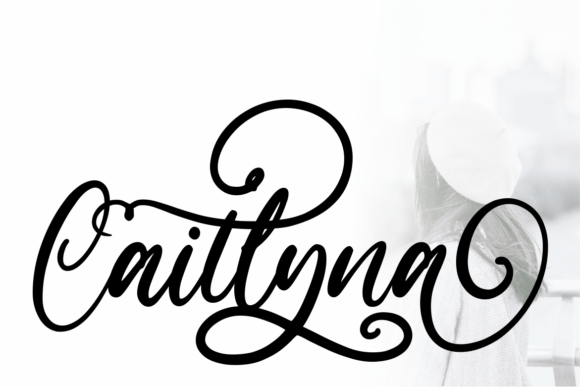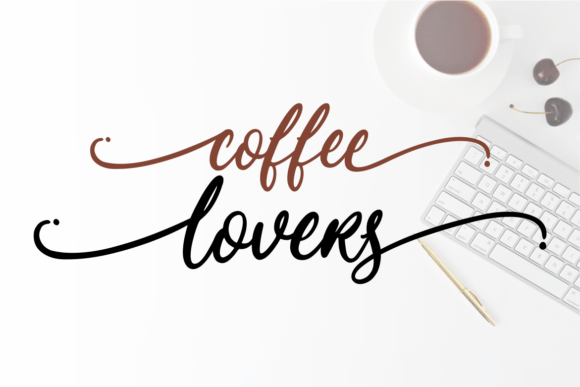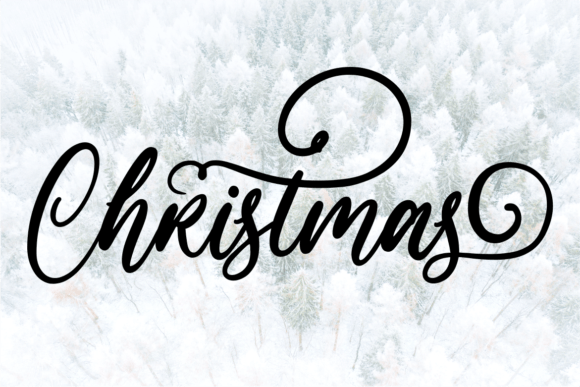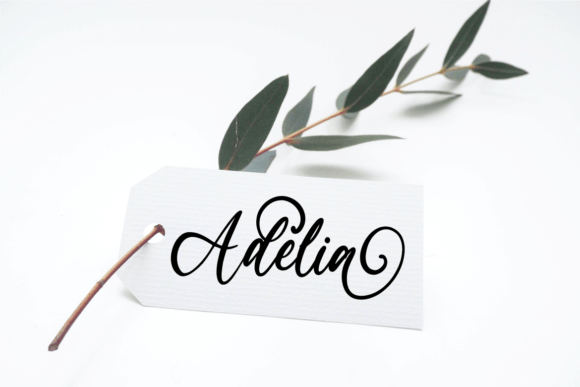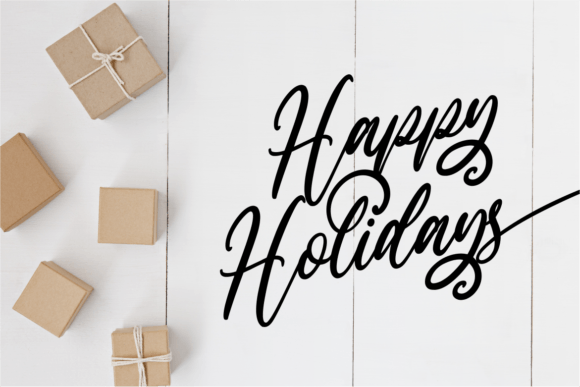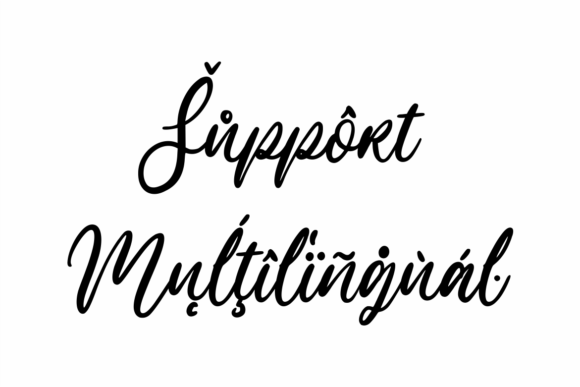
Introducing Farmhouse Font: Elevate Your Designs with Elegance and Style
Are you searching for a font that exudes elegance, sophistication, and a touch of romance? Look no further than Farmhouse Font, a delicate and stylish handwritten script font that is sure to elevate your designs to the next level. With its versatile nature and wide range of applications, Farmhouse Font is the perfect addition to any designer’s or crafter’s toolkit.
Farmhouse Font is a beautiful, handwritten script font that boasts a delicate and elegant aesthetic. Its stylish and refined appearance makes it an ideal choice for a variety of design projects, from greeting cards and invitations to headlines and branding materials. This font is designed to add a touch of romance and sophistication to your work, making it perfect for designers and crafters who want to create unique and eye-catching designs.
- Delicate and Elegant Design: Farmhouse Font features a beautiful, handwritten design that is both delicate and elegant. Its refined appearance makes it perfect for designs that require a touch of sophistication.
- Versatile Applications: This font is incredibly versatile and can be used for a wide range of design projects, including greeting cards, invitations, headlines, and branding materials.
- PUA Encoded: Farmhouse Font is PUA encoded, which means that you can access all of the glyphs and swashes with ease. This makes it easy to customize your designs and add unique touches.
Applications of Farmhouse Font
Farmhouse Font is a versatile font that can be used for a wide range of design projects. Here are some examples of how you can use this beautiful font:
- Greeting Cards: Add a touch of elegance and sophistication to your greeting cards with Farmhouse Font. Its delicate design makes it perfect for special occasions such as weddings, anniversaries, and birthdays.
- Invitations: Create beautiful and elegant invitations for special events such as weddings, baby showers, and bridal showers.
- Headlines: Use Farmhouse Font to create eye-catching headlines for your blog posts, articles, and social media posts.
- Branding Materials: Add a touch of sophistication to your branding materials such as logos, business cards, and letterheads.
Why Choose Farmhouse Font?
There are many reasons why you should choose Farmhouse Font for your design projects. Here are a few:
- Unique and Elegant Design: Farmhouse Font features a unique and elegant design that is sure to set your designs apart from the rest.
- Versatile Applications: This font is incredibly versatile and can be used for a wide range of design projects.
- PUA Encoded: Farmhouse Font is PUA encoded, which makes it easy to access all of the glyphs and swashes.
In conclusion, Farmhouse Font is a beautiful and elegant handwritten script font that is sure to elevate your designs to the next level. Its delicate design, versatile applications, and ease of use make it a must-have for designers and crafters. With its PUA encoded feature, you can access all of the glyphs and swashes with ease, making it easy to customize your designs. Whether you’re creating greeting cards, invitations, headlines, or branding materials, Farmhouse Font is the perfect choice.